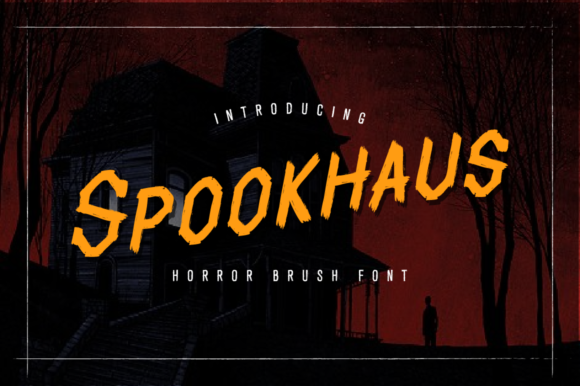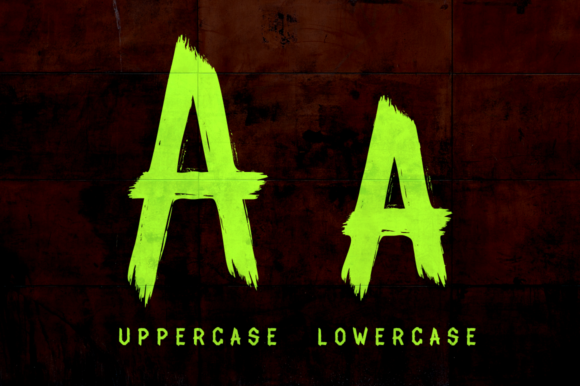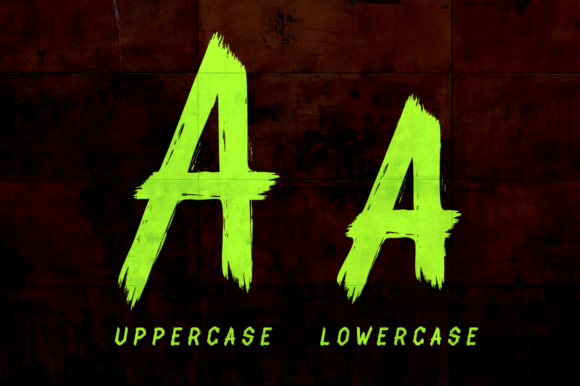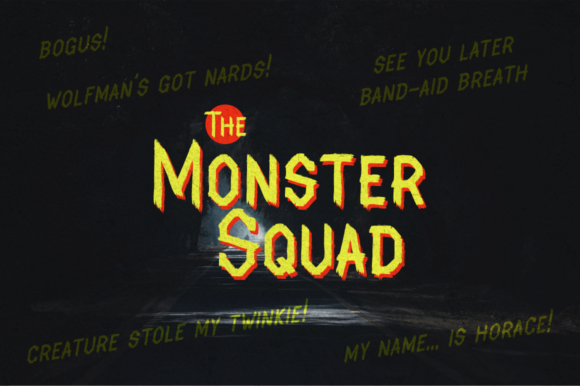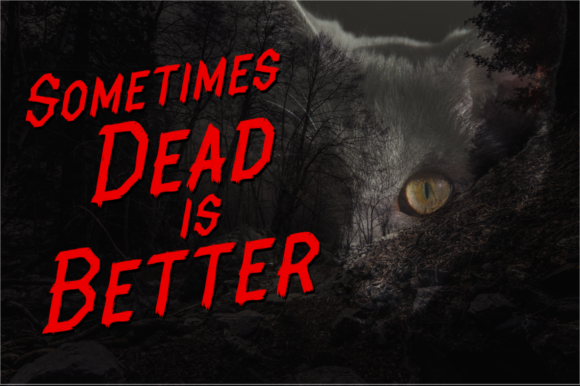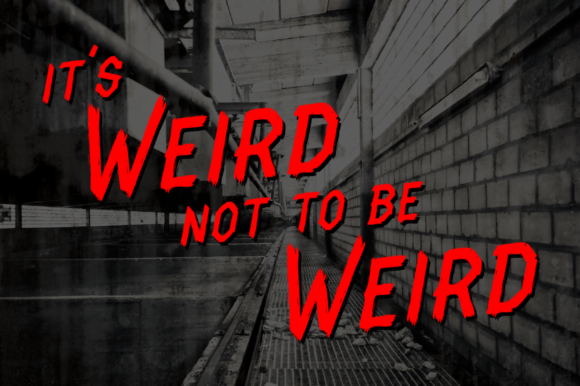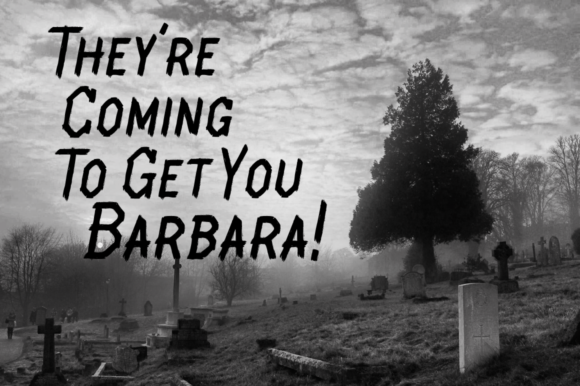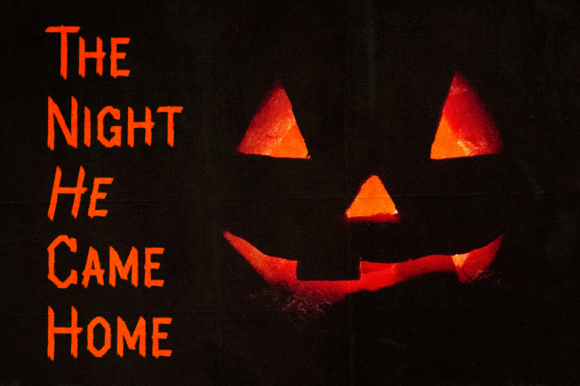
Spookhaus Font
About Spookhaus Font
The Spookhaus is a horror brush font which was inspired by vintage horror movie posters.
It’s perfect for horror and Halloween themed projects, as well as band logos & flyers, t-shirt designs, and more.